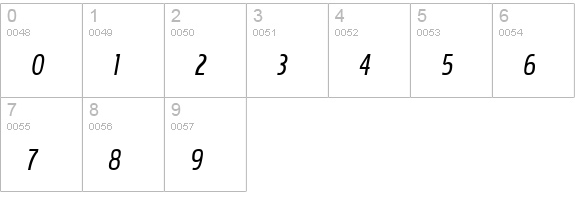
Pakenham Cnd Italic is a distinctive, italic variant in the Pakenham typeface family \xE2\x80\x94 well suited to design and typography projects.
Pakenham Cnd Italic is a stylish and elegant font that exudes sophistication and modernity. Its sleek and slender letterforms are perfect for adding a touch of class to any design project. The italic styling adds a sense of movement and flair, making it ideal for conveying a sense of dynamism and energy. What sets Pakenham Cnd Italic apart is that it is available for free download at FontsMarket.com. This means that you can enhance your projects with this beautiful font without any cost. Whether you're working on a branding project, a website design, or any other creative endeavor, Pakenham Cnd Italic will elevate your work to the next level. Download it today and see the difference it can make in your designs.